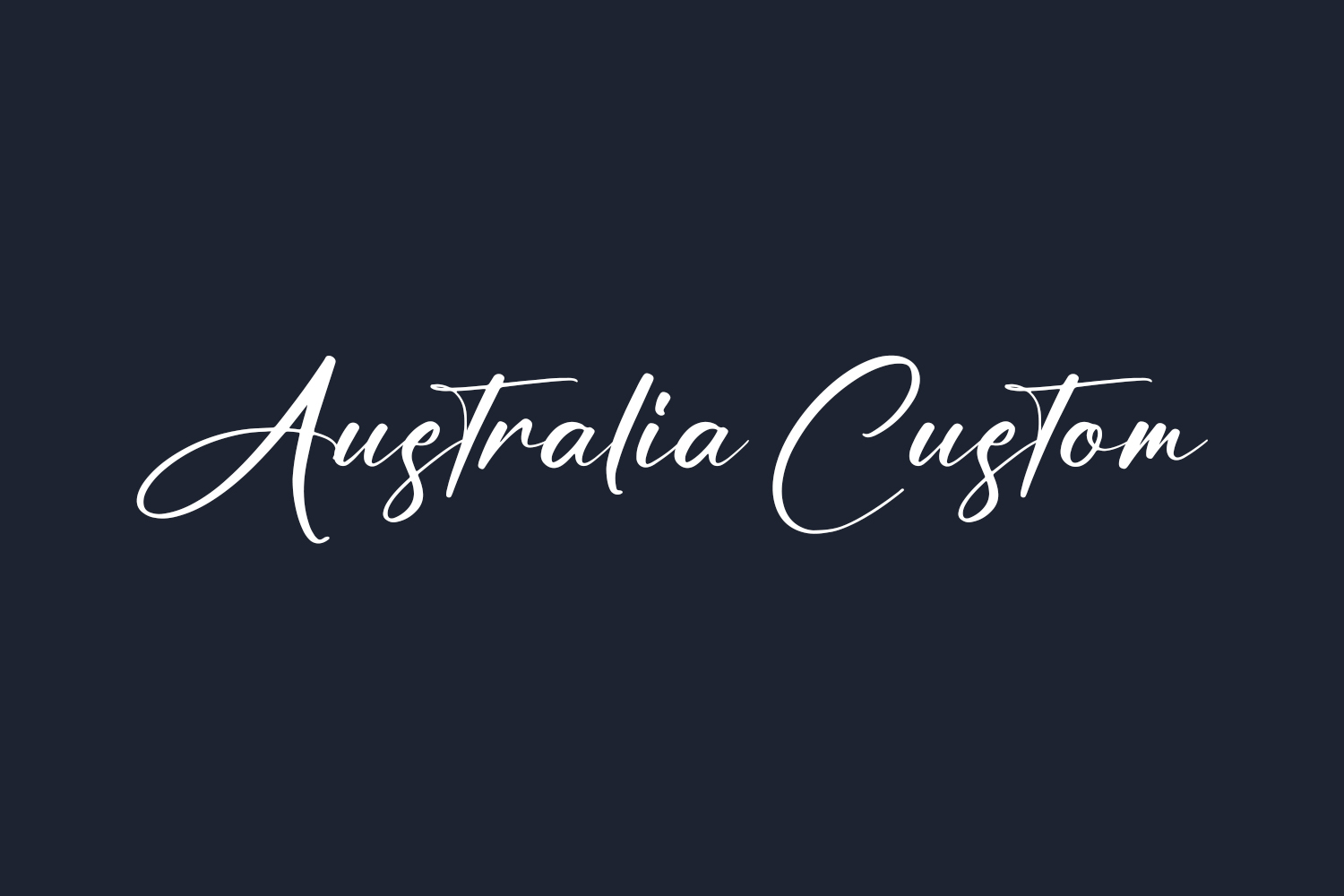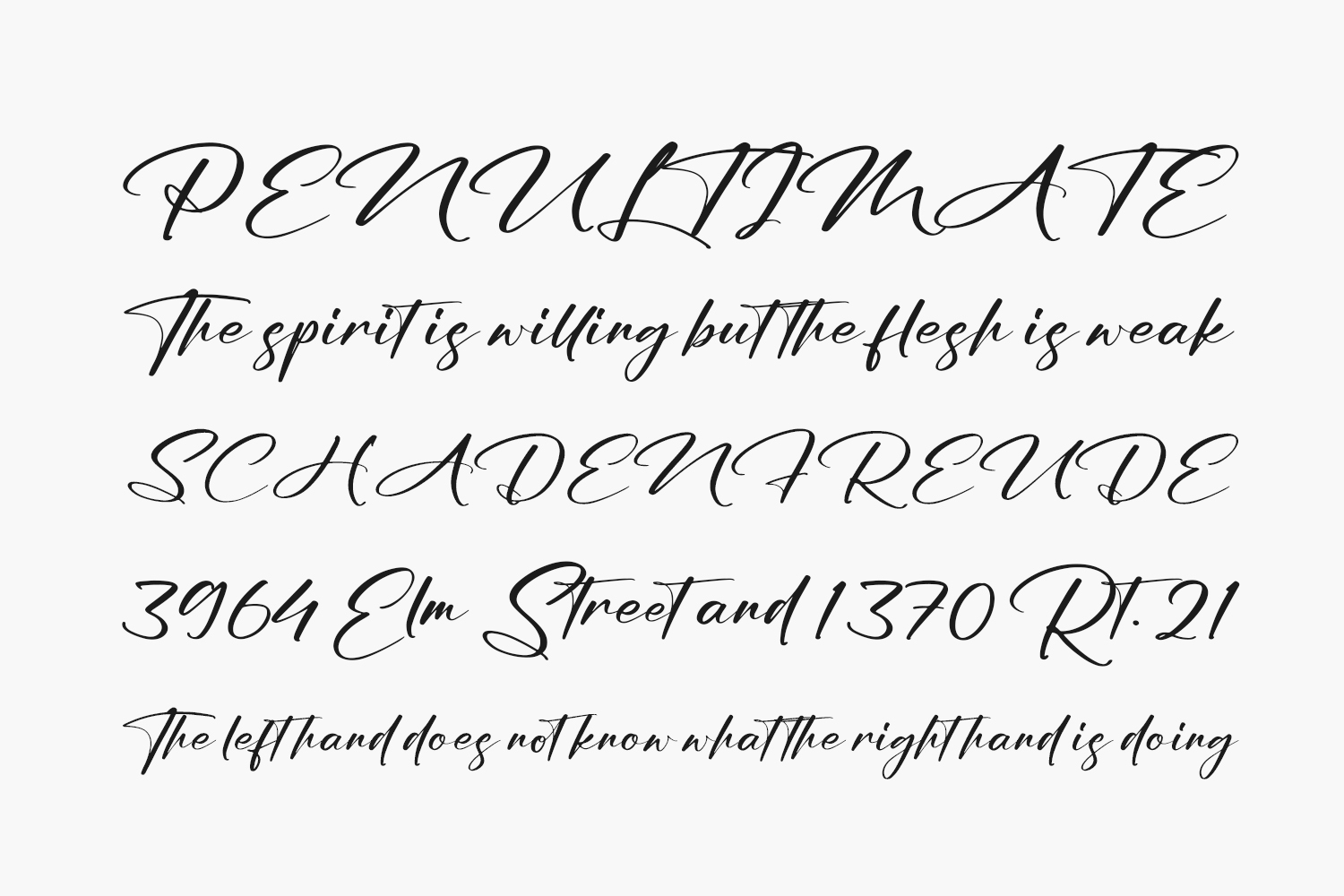
Australia Custom Free Font Family is a lovely script font featuring charming, playful characters that seem to dance along the baseline. Australia Custom Free Font Family was designed by Perspectype Studio and is free for personal use only. Please purchase the full version for commercial use.
Australia Custom Regular The quick brown fox jumps over the lazy dog
Australia Custom Italic The quick brown fox jumps over the lazy dog